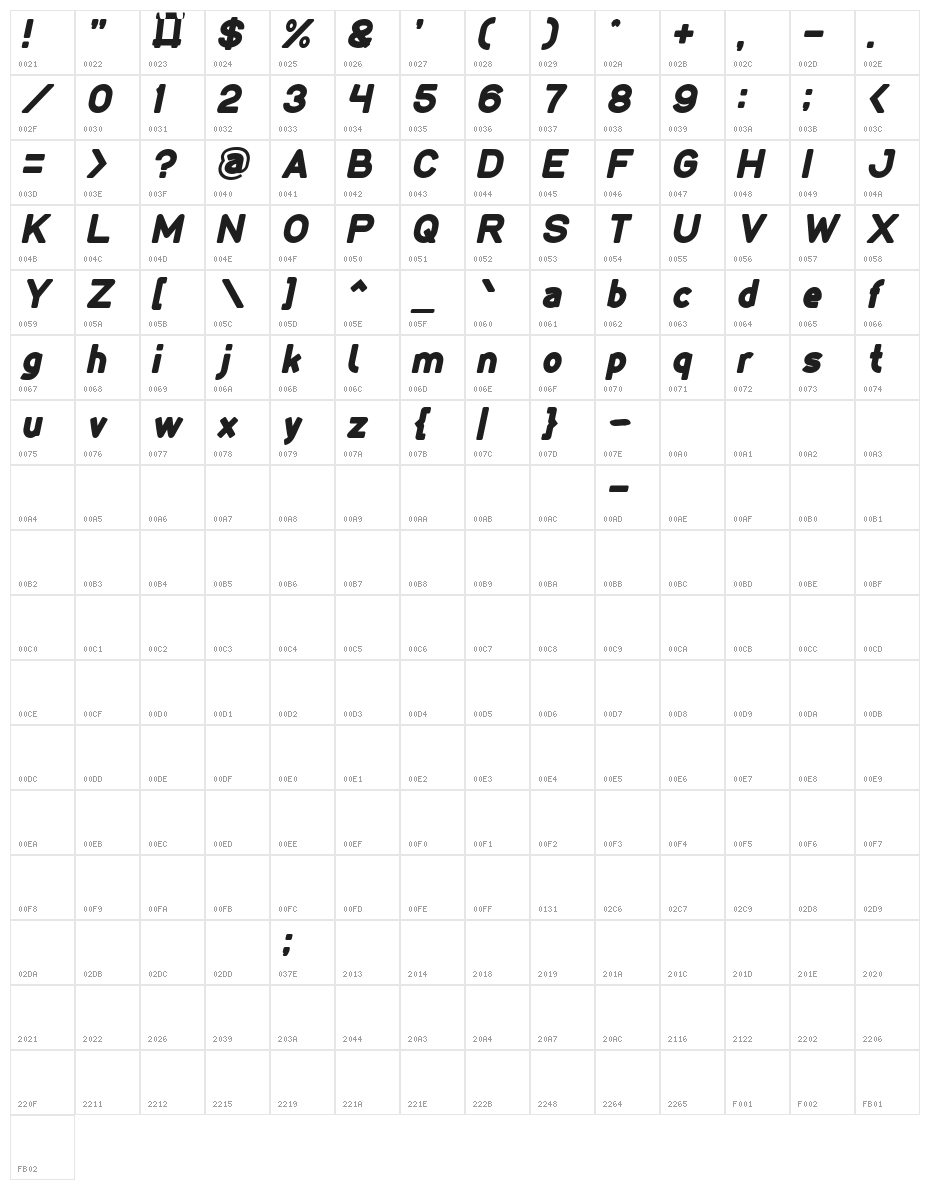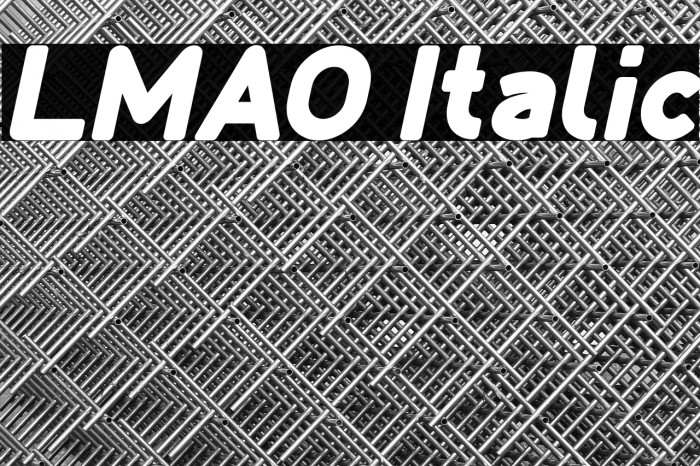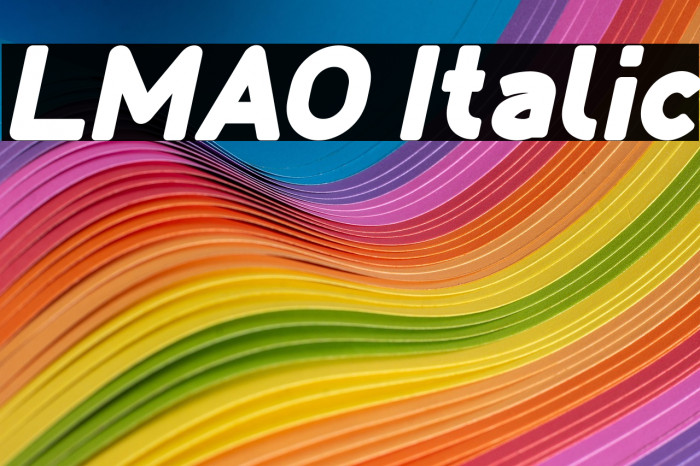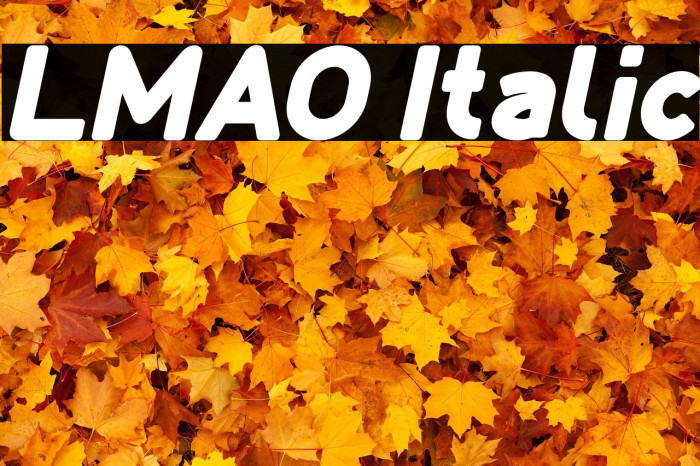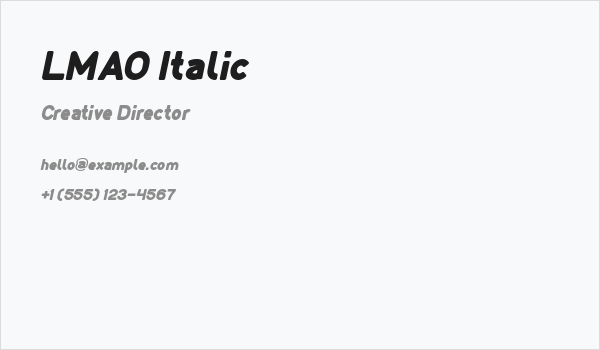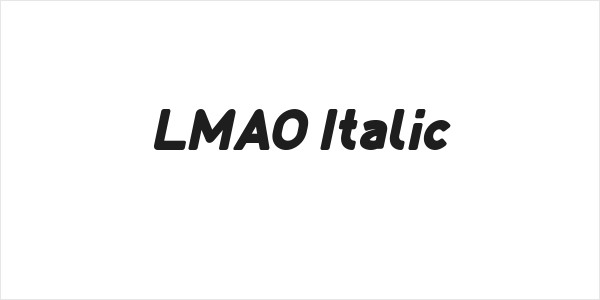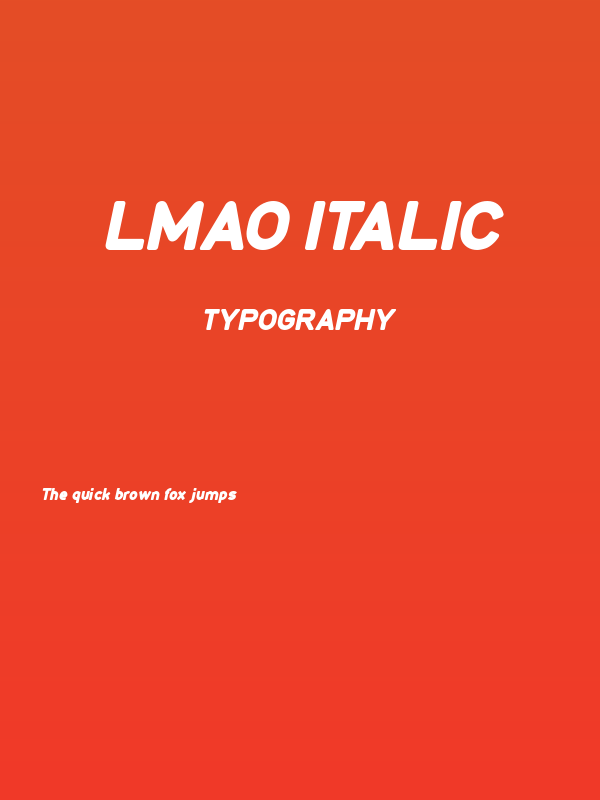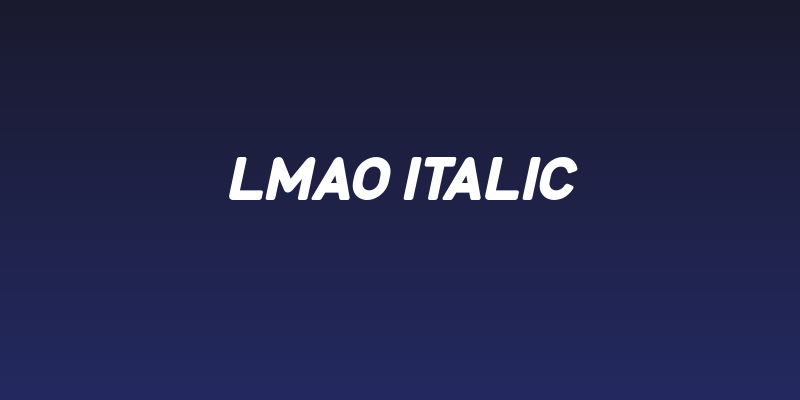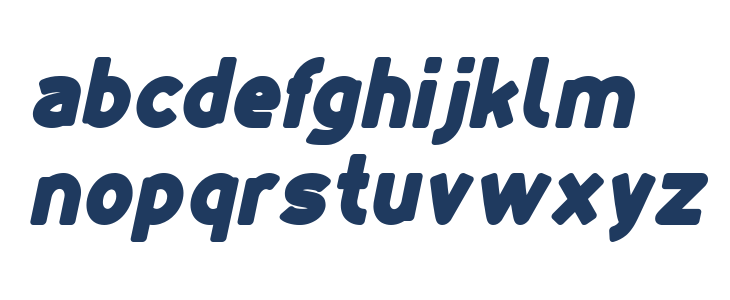
LMAO Italic Font
LMAO Italic Description
This font features a bold and italicized style with smooth, rounded edges that give it a playful and modern appearance. The characters are slightly condensed, enhancing readability while maintaining a distinctive look. The uppercase and lowercase letters are well-balanced, with consistent stroke thickness that contributes to its bold presence. The numerals and special characters are designed to match the overall style, ensuring uniformity across different text elements. Its dynamic and energetic feel makes it suitable for a variety of creative applications.